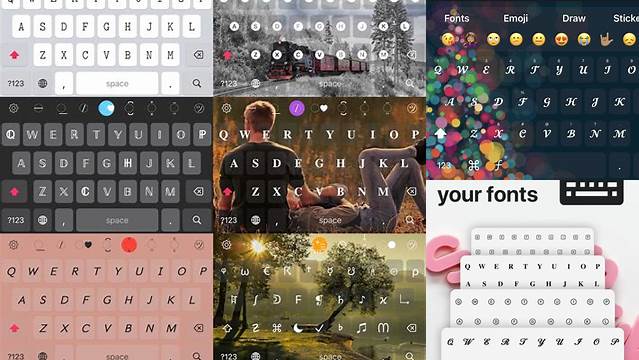
Cool Fonts For Apple Keyboard: A Complete Guide
Hey guys! Ever felt like your Apple keyboard could use a little pizzazz? You're not alone! Customizing your font can make everything from emails to documents feel a bit more… you. Let's dive into the world of anu fonts apple keyboard and how you can jazz up your typing experience.
1. Understanding Font Basics on Apple Devices
Before we get into the fun stuff, let's cover some basics. On your Apple devices, fonts are handled a bit differently than on, say, a Windows machine. You've got system fonts that come pre-installed, and then you have the option to add more. Knowing how these work will help you avoid any font-related headaches down the road. We are talking about font basics here, understanding how font work on apple devices can bring the best experience for users. You can use default font or install the new one as you wish. Using anu fonts apple keyboard can be your first experience in changing your keyboard style. This will make you more confident when operating the Apple devices. You can adjust fonts for your needs, whether you are writing, editing, or presenting something. This experience will also give you benefits in your productivity. Knowing what type of font that you use also can bring a certain vibes, whether formal or informal. So you can be more confident when dealing with your works. In the end, understanding the basics is the first thing before diving deeper into fonts modification.
2. Default Fonts on macOS
macOS comes packed with some seriously stylish fonts. From the classic San Francisco to the elegant New York, there's a font for every mood. Knowing your default options is crucial because they're optimized for readability and performance on your Mac. The default fonts are the safest option for using anu fonts apple keyboard. Because the default fonts are designed by Apple itself, so it will be suitable for any Apple devices. The default font also light, which means it won't take too much space in your storage. So, using the default fonts will keep your device still on the best performance. However, it doesn't mean you can't change your default fonts. It is just one option to consider before jumping into installing third-party fonts. Using default fonts also gives you confidence in the compatibility aspects. There will be no issues regarding compatibility if you use default fonts. This also saves you from trouble in dealing with errors caused by uncompatible fonts.
3. Default Fonts on iOS and iPadOS
Just like macOS, iOS and iPadOS have their own set of default fonts. San Francisco is the star here, but there are other options too. Knowing these fonts can help you maintain a consistent look across your Apple ecosystem. In iOS and iPadOS, you can find the same default font as in macOS. This is a good thing because it brings the same feel throughout Apple devices. If you are looking for anu fonts apple keyboard in your iPhone or iPad, the default fonts are worth considering. They are proven compatible and give you the best experience. You can still tweak your font style, but using default fonts is the most suitable option for beginners. You don't have to face the hassle of installing third-party fonts. The default font brings a modern and clean feel to your devices. For those who want simplicity and usability, the default fonts in iOS and iPadOS are the right choice.
7. Finding Fonts Online: Resources and Marketplaces
There are tons of places to find fonts online! From free font websites to premium marketplaces, you've got options galore. Just be sure to check the licensing terms before using a font, especially for commercial projects. When you want to explore anu fonts apple keyboard, the internet is your best place to find various fonts. There are many websites that offer both free and paid fonts. But, be careful about the licensing. If you are using the font for commercial purposes, make sure you have the right license. This will save you from legal issues in the future. Free fonts are great, but sometimes the premium ones offer better quality and more features. Take your time to explore different marketplaces and find the perfect fonts for your needs. Using online resources and marketplaces is a great way to expand your font collection.
8. Free Font Websites: A Treasure Trove
Speaking of free fonts, there are some amazing websites out there that offer high-quality fonts for free. Websites like Google Fonts, Dafont, and Font Squirrel are goldmines for typography enthusiasts. Free font websites offer a lot of choices for anu fonts apple keyboard without costing you any money. Google Fonts is a very popular choice because it provides a wide range of fonts that are easy to use. Dafont and Font Squirrel also have many options, from classic to modern styles. When using free fonts, it is still important to check the license. Some fonts might be free for personal use but require a license for commercial use. These websites are great for finding unique and stylish fonts to enhance your typing experience. With a little searching, you can find the perfect font for your project without breaking the bank.
9. Premium Font Marketplaces: Investing in Quality
If you're looking for something extra special, premium font marketplaces are the way to go. Sites like MyFonts and Creative Market offer fonts designed by professionals, often with more features and support. Sometimes, investing in premium fonts can make a big difference in your projects. Premium font marketplaces offer fonts with unique and high-quality designs. You can find many choices for anu fonts apple keyboard in these marketplaces. They usually come with better support and more features than free fonts. If you are working on a big project or want a specific style, paying for a premium font might be worth it. These fonts are created by professional designers, so you can be sure they are well-made and easy to use. Investing in quality fonts can elevate your design and make your work stand out. It is a good choice if you are looking for the best typography options.
So there you have it! A deep dive into the world of anu fonts apple keyboard. Whether you're tweaking your system fonts or crafting the perfect design, your font choices can make a big impact. Happy typing!